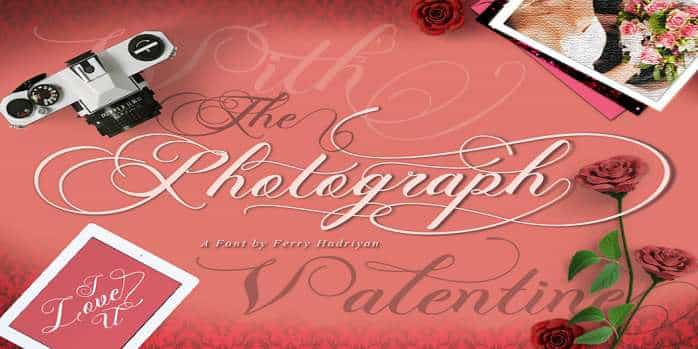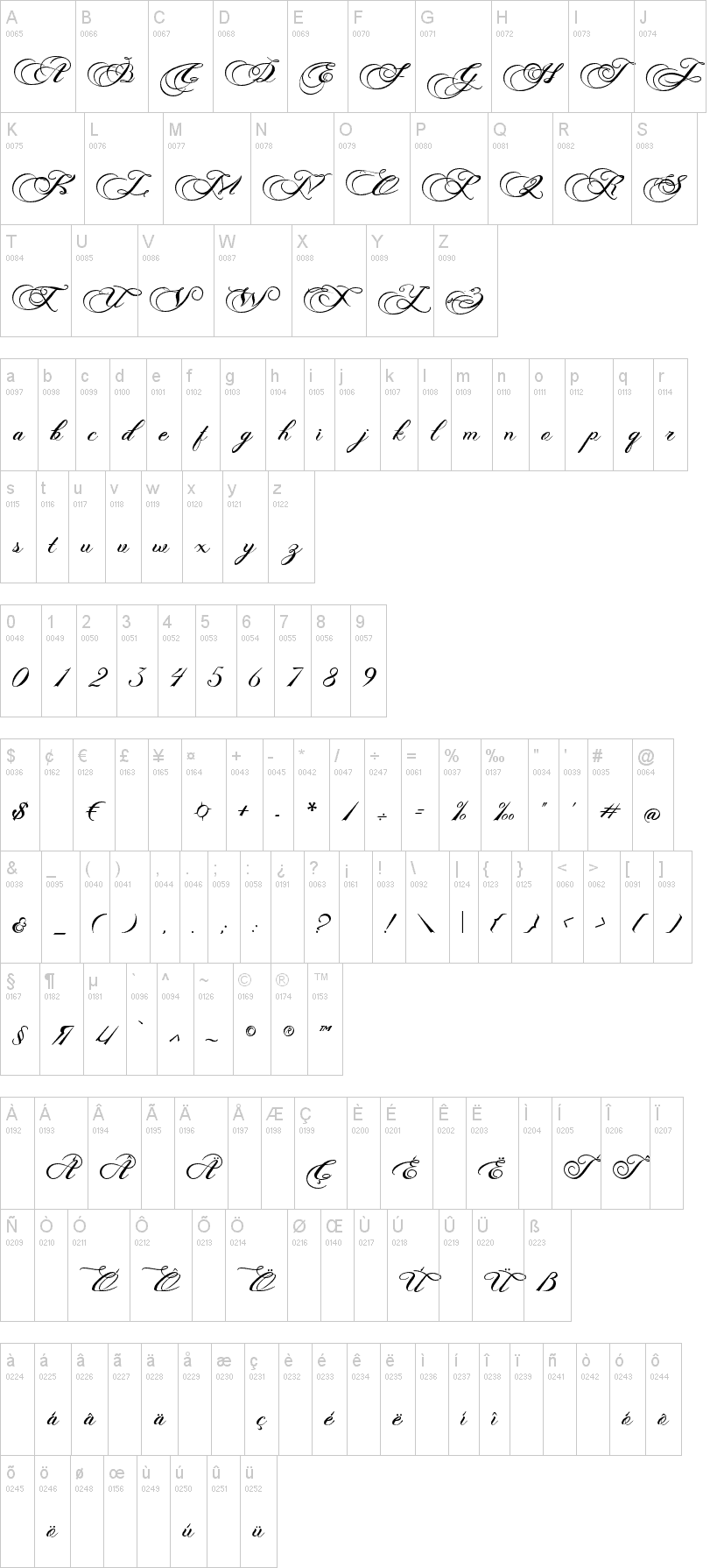
Photograph Script is a stunning Calligraphy Font that has been designed by fey design and is now available for free download and personal use. The free version offers all the capital and small letters and several special characters as well.